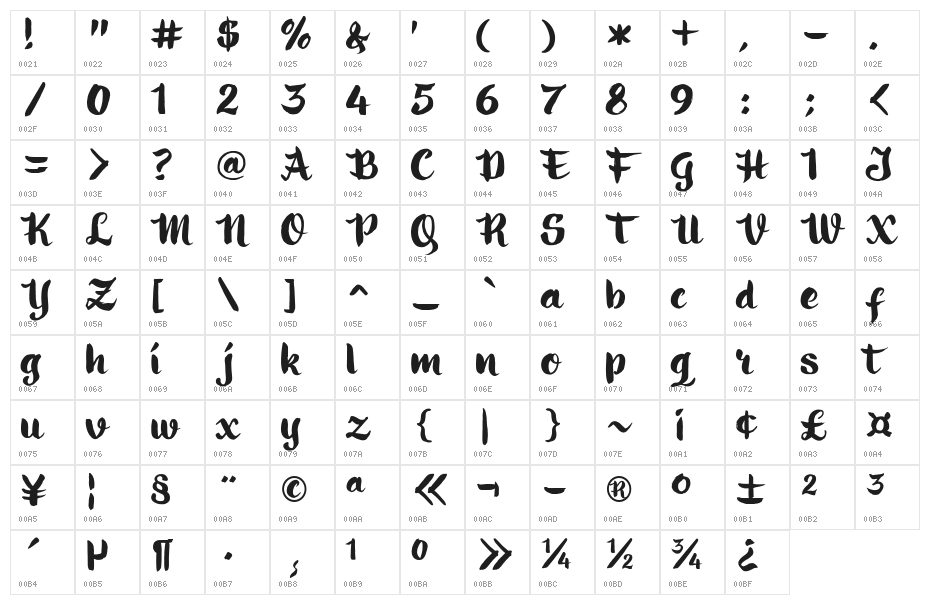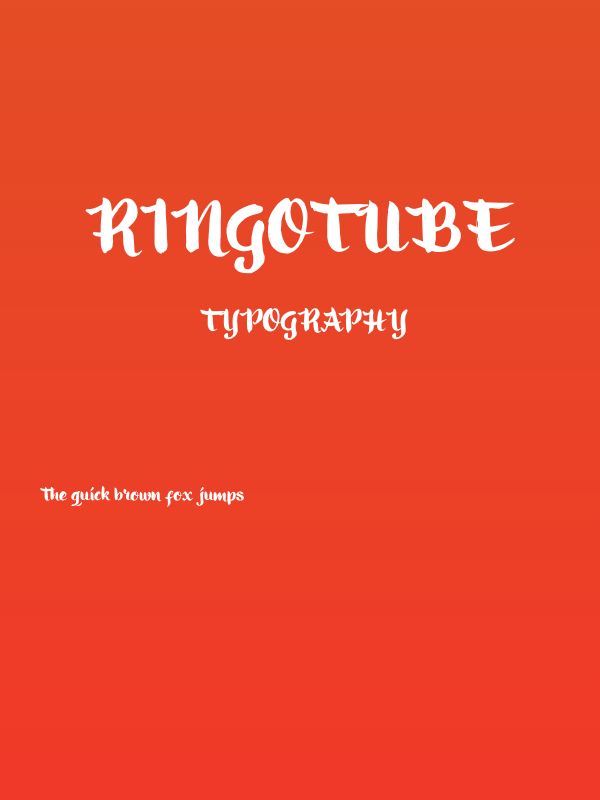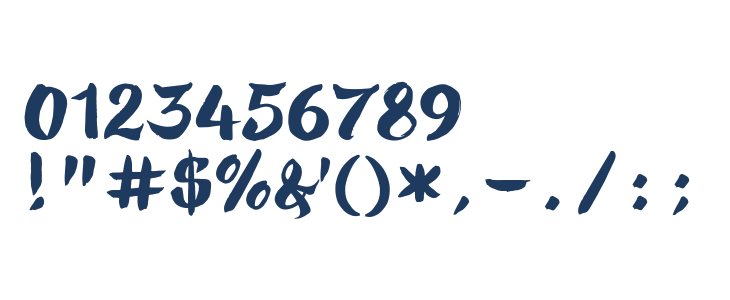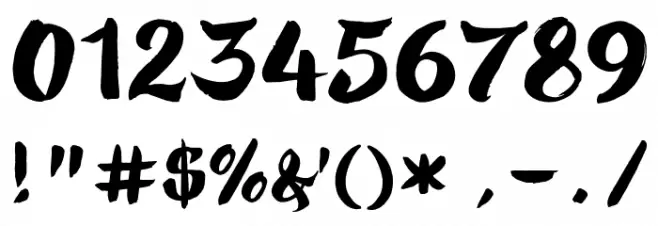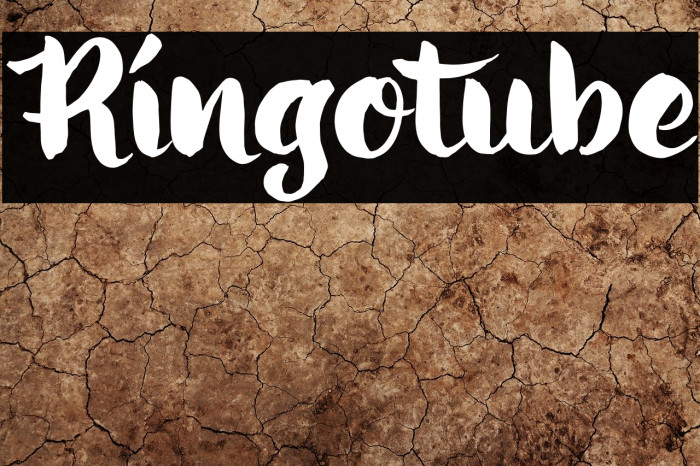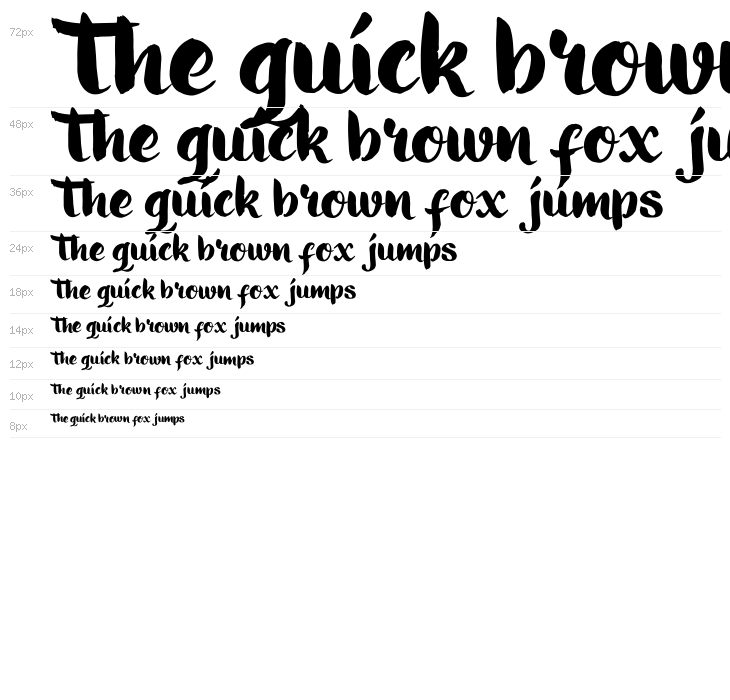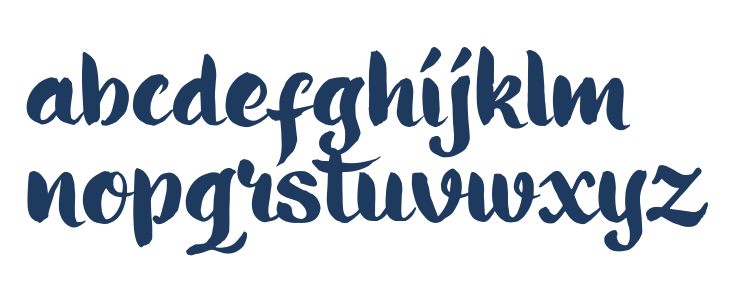
Ringotube Font
Ringotube Description
This font features a bold and expressive style with a handwritten aesthetic. The characters are crafted with a brush-like texture, giving them a dynamic and artistic appearance. The uppercase letters are slightly more structured, while the lowercase letters exhibit a more fluid and casual form. The numbers and special characters maintain the same bold and artistic flair, ensuring consistency across all elements. This font's unique style makes it stand out, with each character having a distinct personality that adds a creative touch to any design.
| Proposed Projects | Ideal for creative projects such as posters, invitations, branding, and artistic designs where a bold, expressive style is desired. |